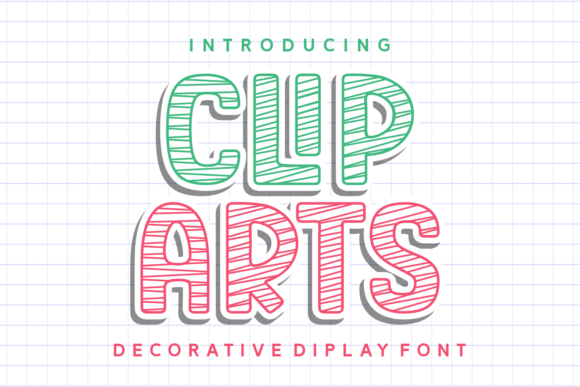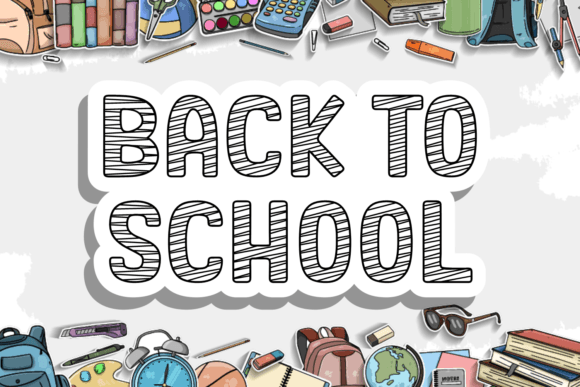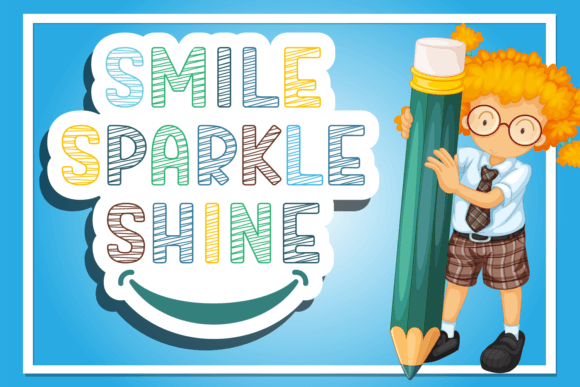
Clip Arts Font
Clip Arts is a lovely decorative display font imbued with the charming aesthetic of hand-drawn sketches. The font exudes a playful and artistic vibe, making it perfect for creative and imaginative design projects. With its sketch style, “Clip Arts” adds a unique and personalized touch to headlines, titles, posters, invitations, and more. Whether used for crafting DIY projects, scrapbooking, or adding flair to digital media, this font brings a sense of joy and creativity to any typographic composition.